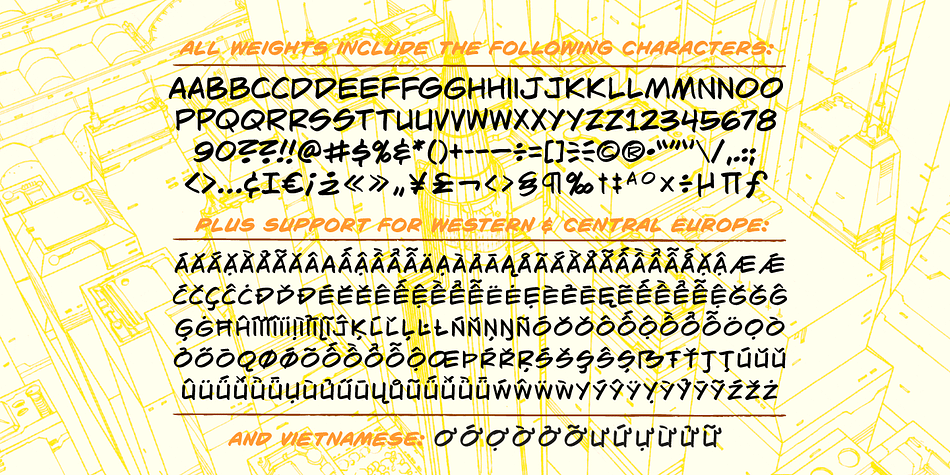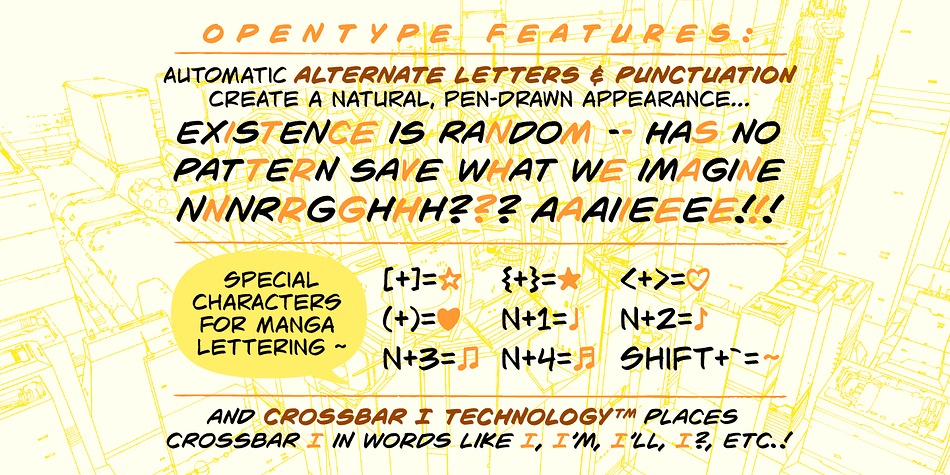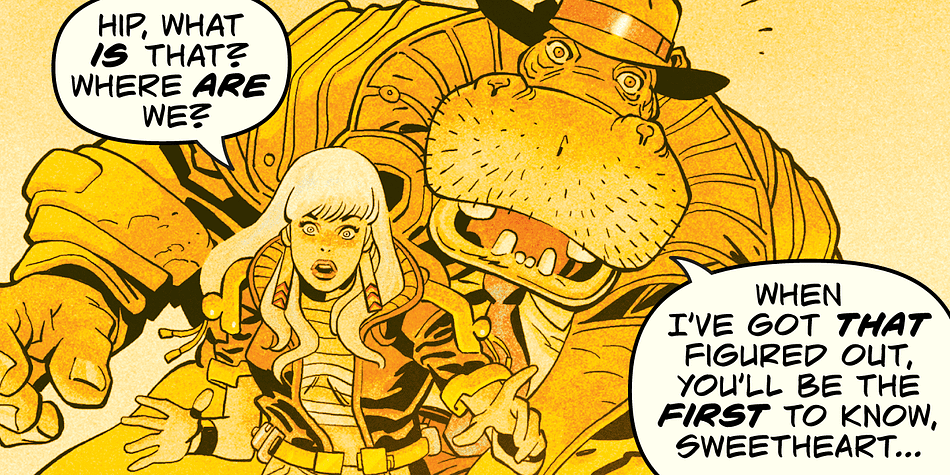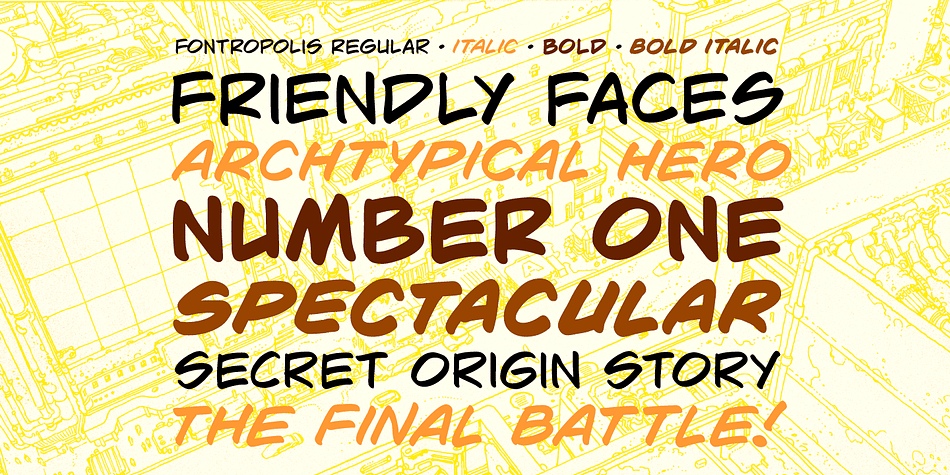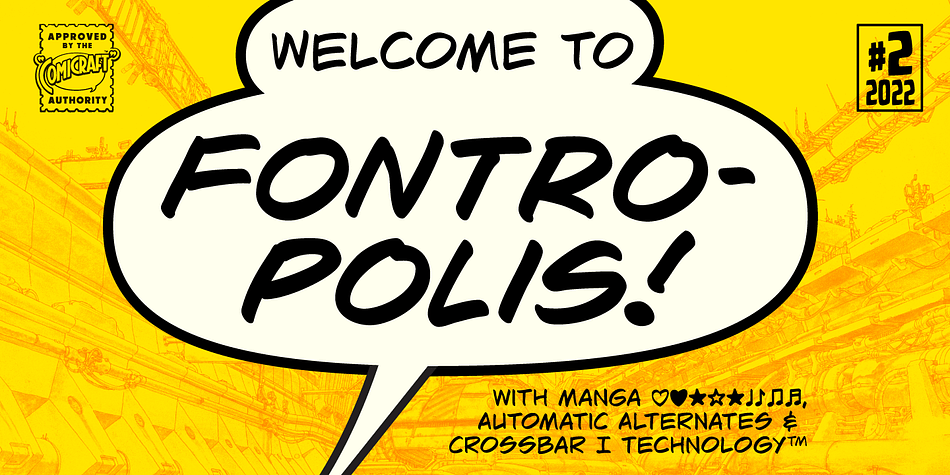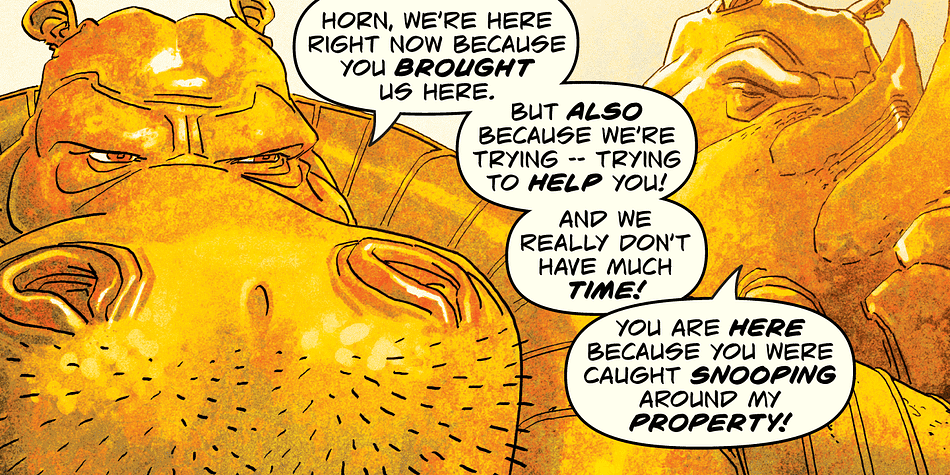
Designed by John Roshell, Fontropolis is a comic font family. This typeface has four styles and was published by Comicraft.
It’s time to leave your cozy picket fence life in Typeville, and make the move to the hustle and bustle of Fontropolis!
FONTROPOLIS is populated by friendly-faced characters you can always count on to help you through the thick and thin of everyday life in the Capital. Why not take a day to admire the classic arches of the ascenders, descenders and horizontals featured in Fontropolis’s architecture? Indulge in a little idle chitchat with your fellow Fontropolitans!
Fear not! The People of Fontropolis will stand firm beside you when the unavoidable Supervillains and Crackpots descend on the capitals, spouting Arrogant Expositions of their Nefarious Plans as they seek to usurp our great country’s democracy! FONTROPOLIS will always prevail!
The Fontropolis font family includes four weights (Regular, Italic, Bold & Bold Italic) with alternate uppercase characters, Western & Central European accents, Vietnamese, Manga characters and Crossbar I Technology™